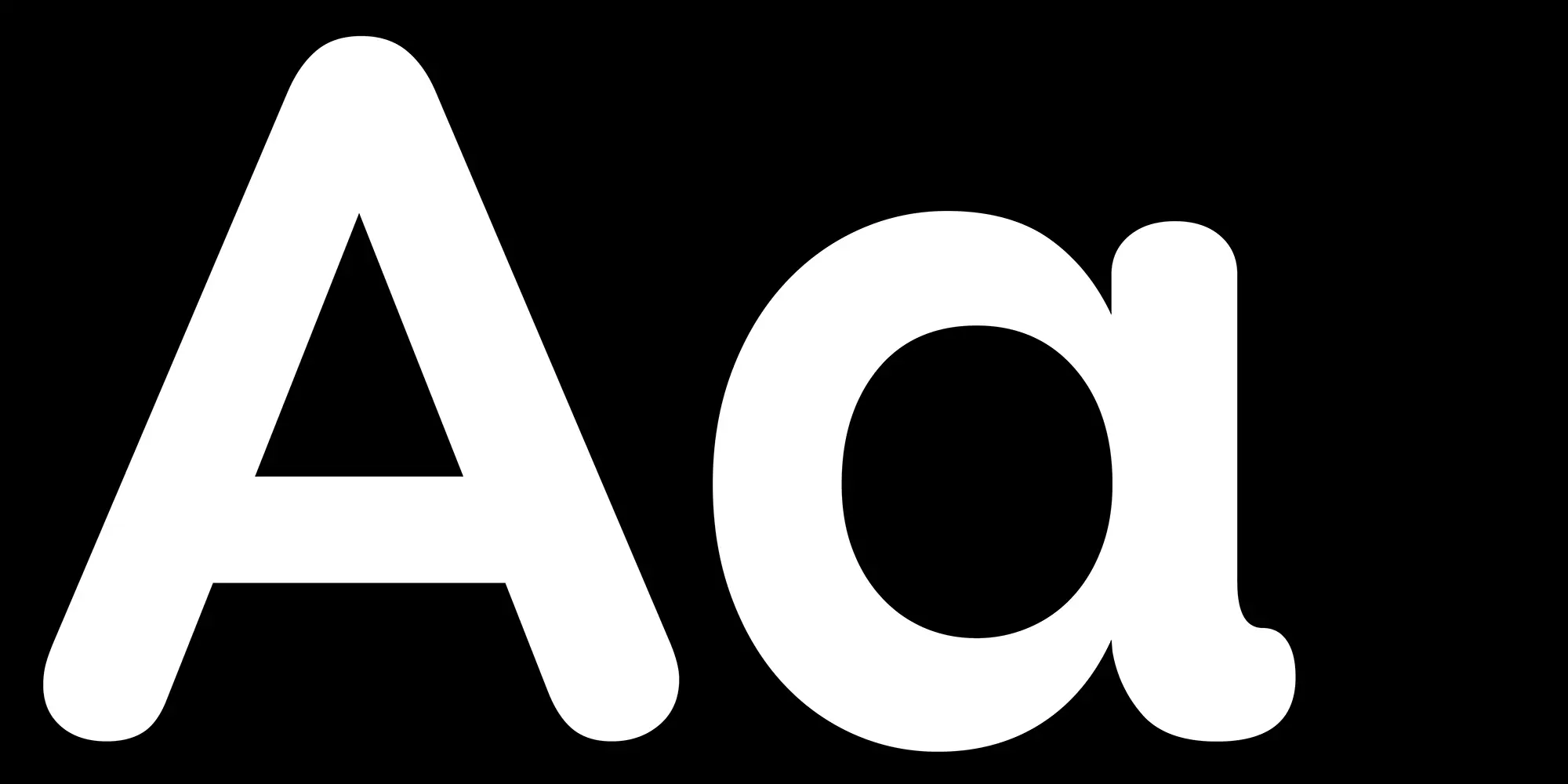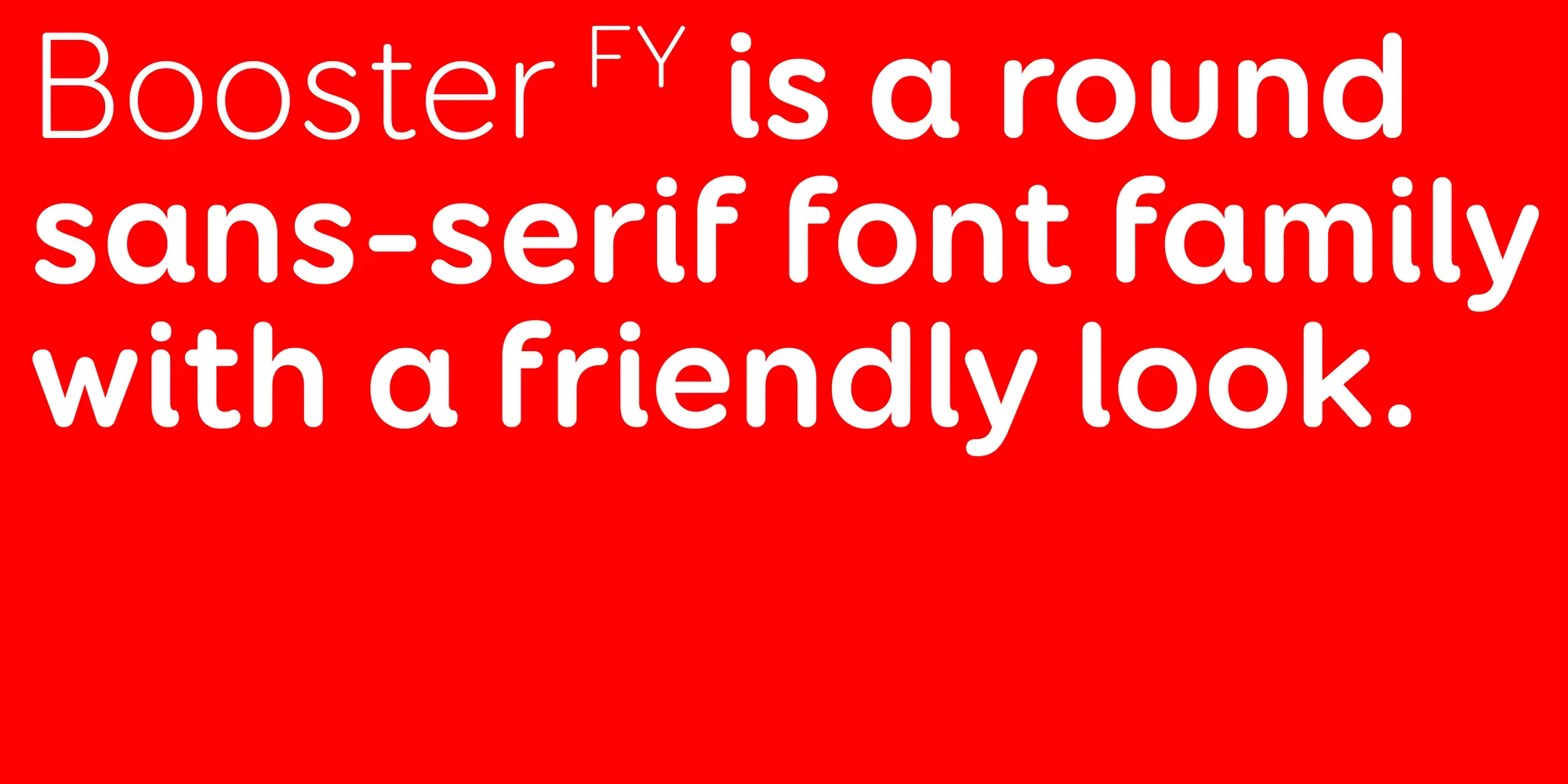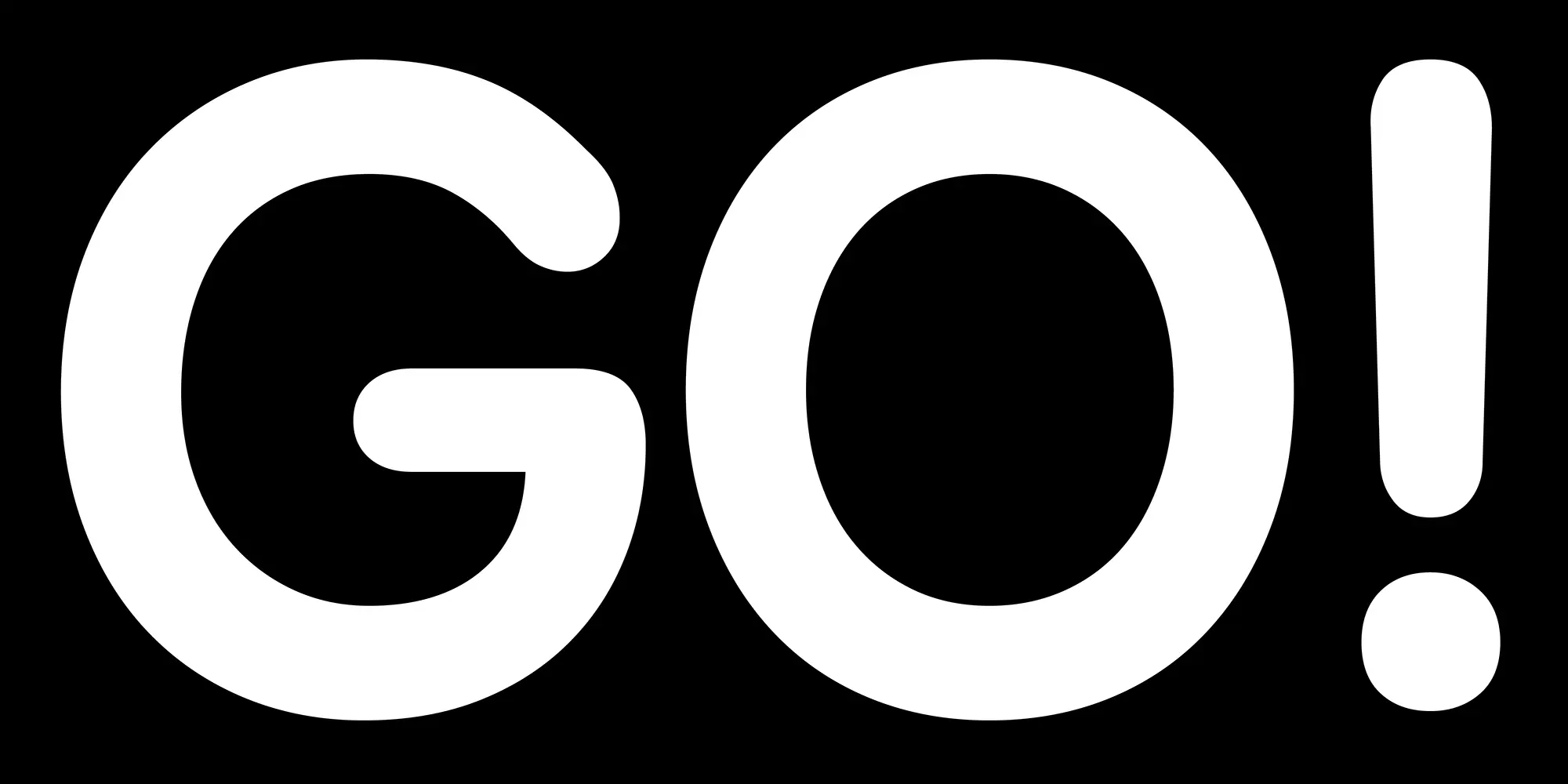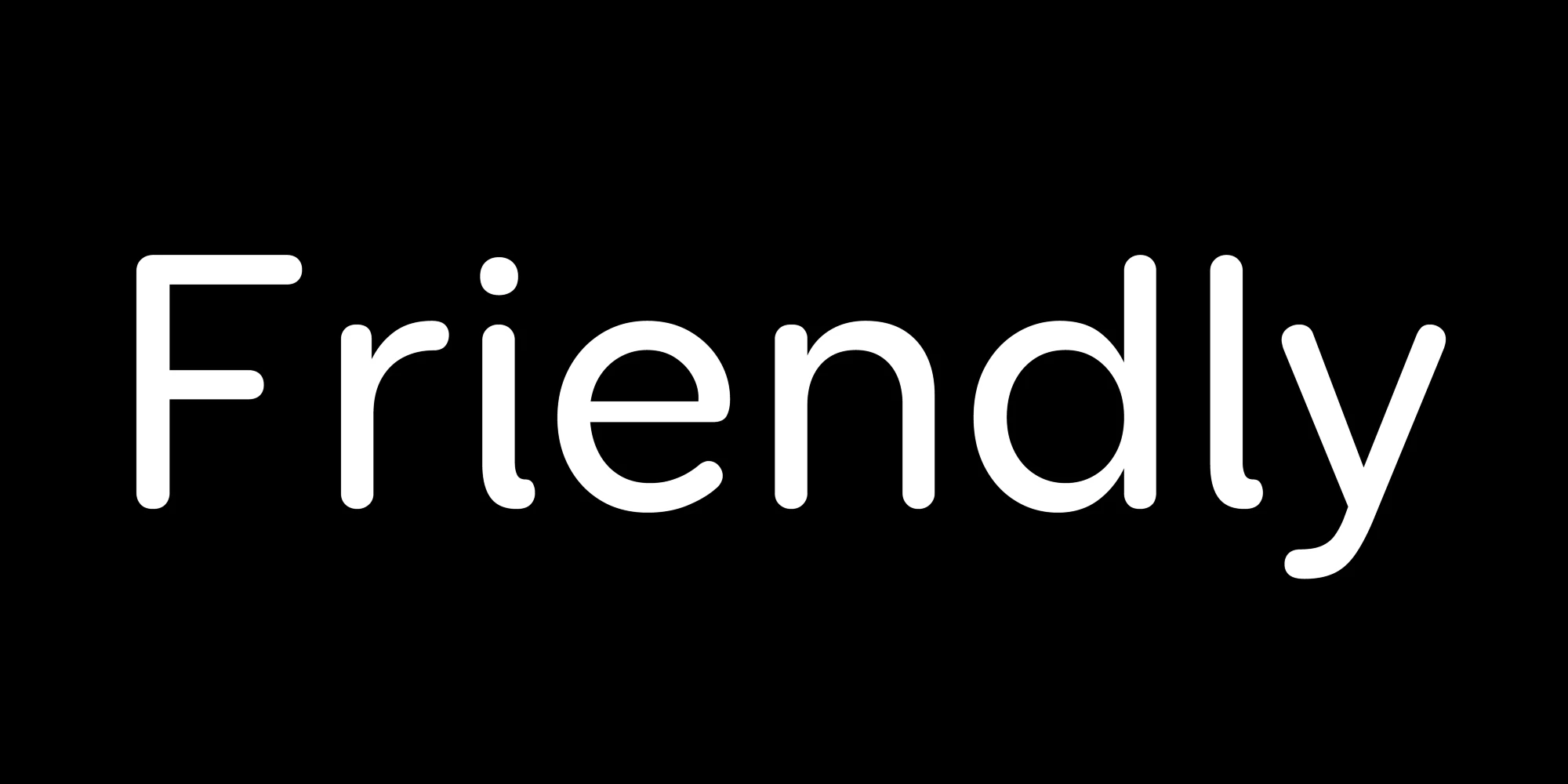
Booster Next Font Family
Booster Next FY is a friendly, round sans serif with clarity and warmth defining its personality. Due to its large x-height, short ascenders and descenders, and sturdy width, this font family offers good legibility in text and display sizes. Created to be both functional and appealing, its character makes it suitable for a range of applications, including branding, signage, and digital interfaces seeking an pleasantly modern feel.
Ligatures
Stylistic Set 1
Fractions
Oldstyle Figures
Tabular Figures
Ordinals
Scientific Inferiors
Superscript
Subscript
Numerators
Denominators
Case-Sensitive Forms
Features
OpenType Features
- Common Ligatures
- Fractions
- Lining Numerals
- Old Style Numerals
- Ordinal Numerals
- Proportional Numerals
- Stylistic Sets
- Subscript
- Superscript
- Tabular Numerals
![Booster Next font by Black[Foundry] — the words “Booster FY is a round sans-serif font family with a friendly look.” in a rounded sans-serif typeface.](https://typographer.io/1/assets/blk:booster-next/banner-2.webp:size(2000,1000)?a28e)
![Booster Next font by Black[Foundry] — the letters G, O, and an exclamation mark in a rounded sans serif.](https://typographer.io/1/assets/blk:booster-next/banner-3.webp:size(2000,1000)?86d4)
![Booster Next font by Black[Foundry] — the word “Friendly” in a rounded sans serif typeface.](https://typographer.io/1/assets/blk:booster-next/banner-4.webp:size(2000,1000)?459f)